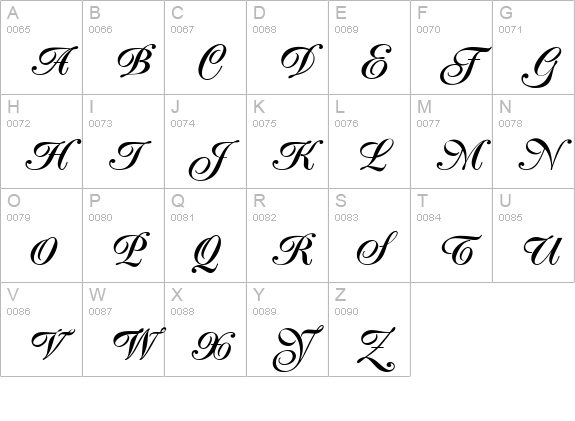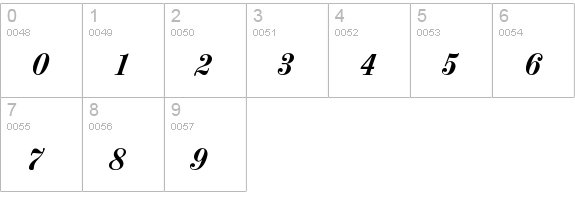
Poppl Exquisit (R) Medium is a balanced, medium-weight variant in the Poppl typeface family \xE2\x80\x94 well suited to sub-headlines, navigation, and balanced editorial work.
Poppl Exquisit (R) Medium font is a sophisticated and elegant typeface that exudes a sense of luxury and refinement. Its clean lines and balanced proportions make it a versatile choice for a wide range of design projects, from branding to editorial design. The medium weight of the font strikes the perfect balance between boldness and readability, making it ideal for both headlines and body text. What sets Poppl Exquisit (R) Medium font apart is its timeless appeal and classic aesthetic that never goes out of style. Whether you're designing a high-end fashion magazine or a luxurious brand identity, this font is sure to elevate your project and give it a touch of sophistication. The best part? Poppl Exquisit (R) Medium font is available for free download at FontsMarket.com. So go ahead and add this exquisite font to your collection today and take your designs to the next level!